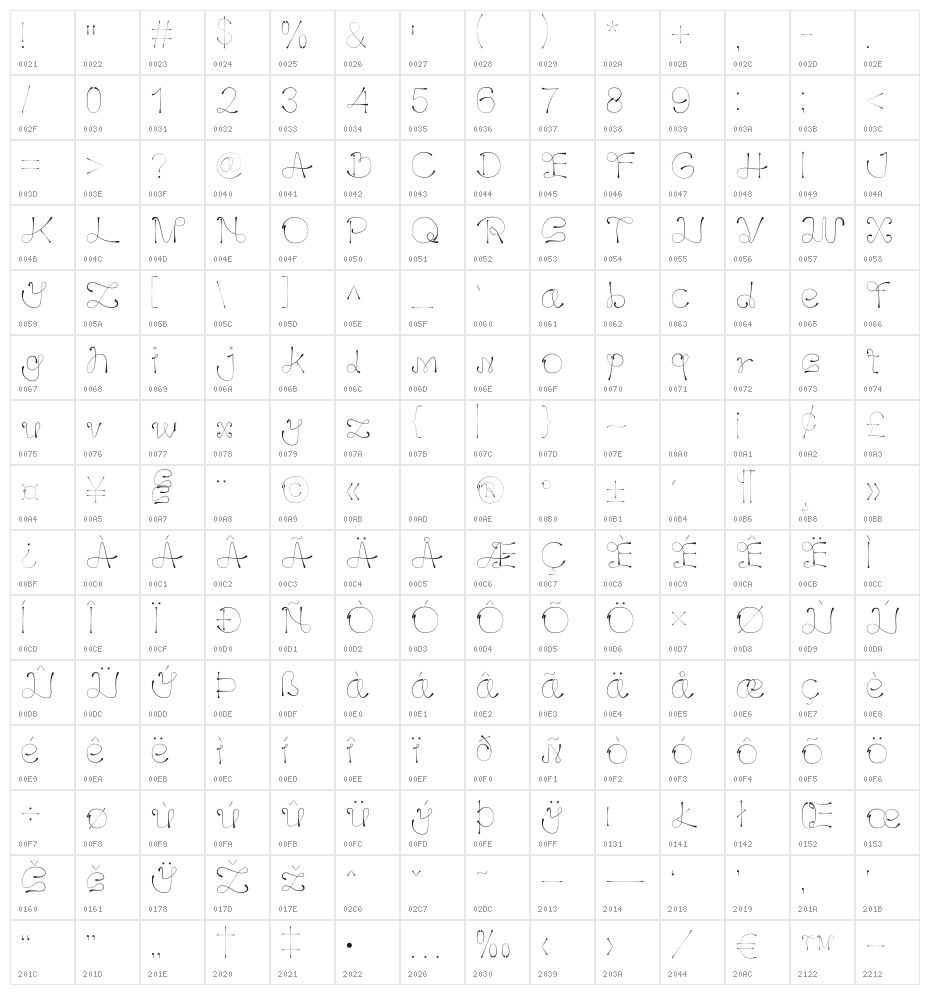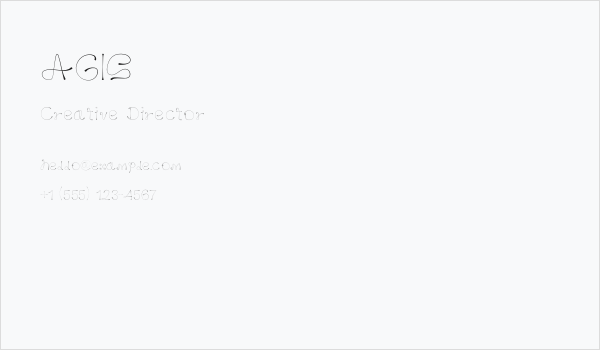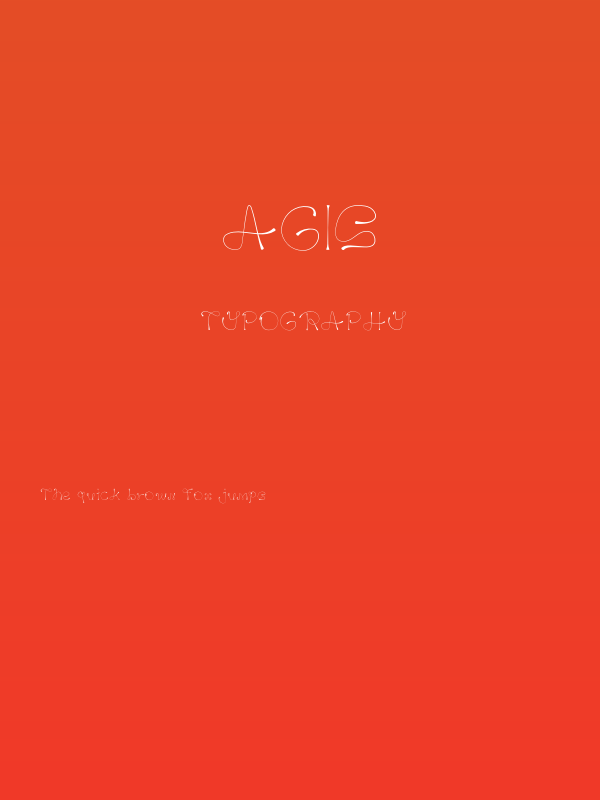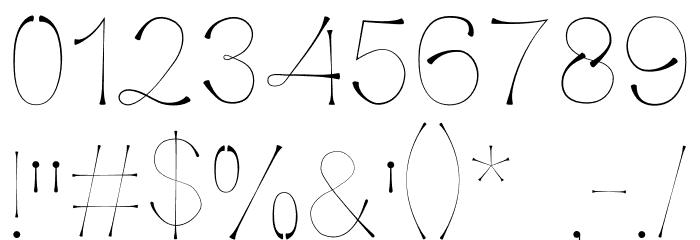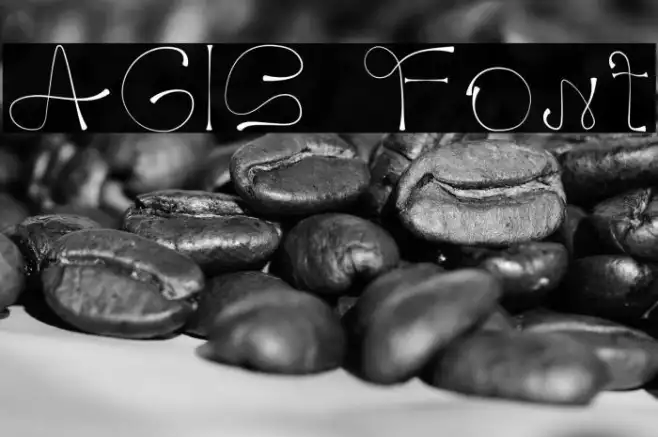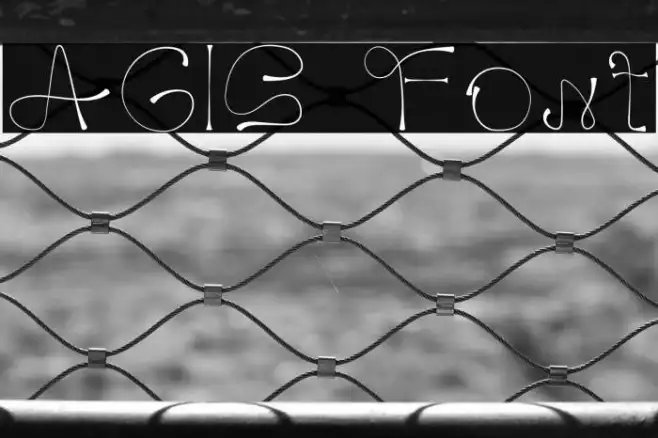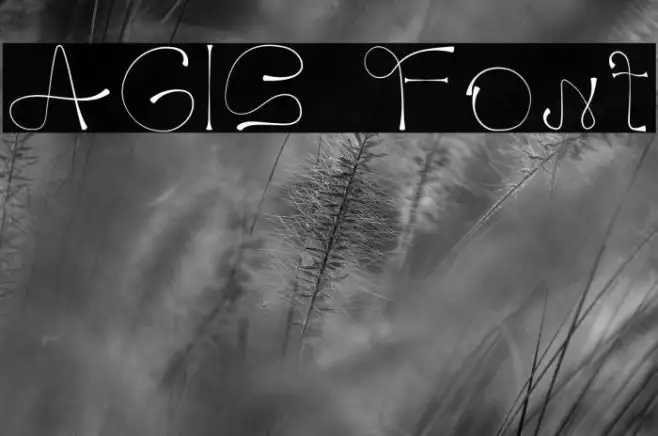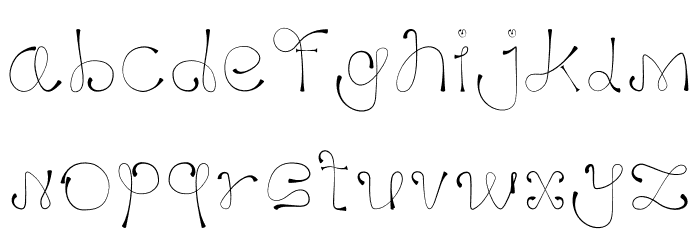
AGIS Font
AGIS Description
This font features a whimsical and playful design, characterized by its looping and swirling strokes that give it a lively and dynamic appearance. The letters are crafted with a sense of movement, as if they are dancing across the page. The uppercase letters are bold and prominent, while the lowercase letters maintain a consistent style, adding to the overall cohesion of the font. The numbers and special characters follow the same playful theme, making this font suitable for creative and artistic projects. The strokes vary in thickness, adding a touch of elegance and sophistication to the design.
| Proposed Projects | Ideal for children's books, playful branding, invitations, and creative posters. |